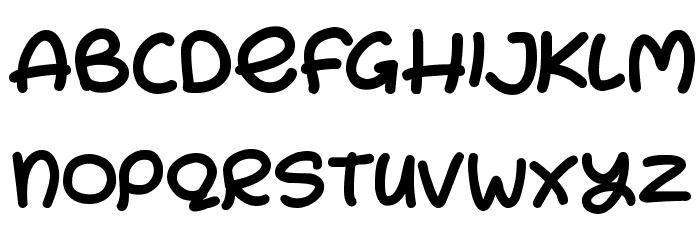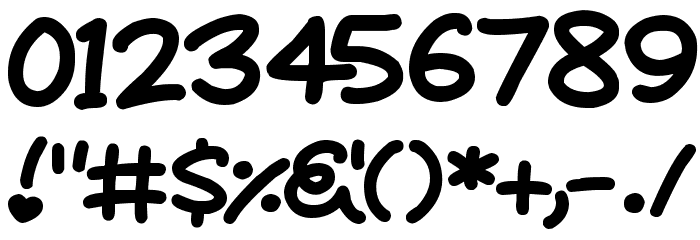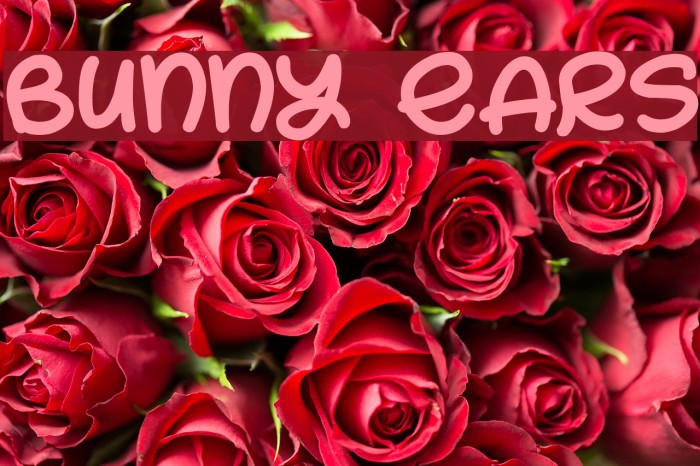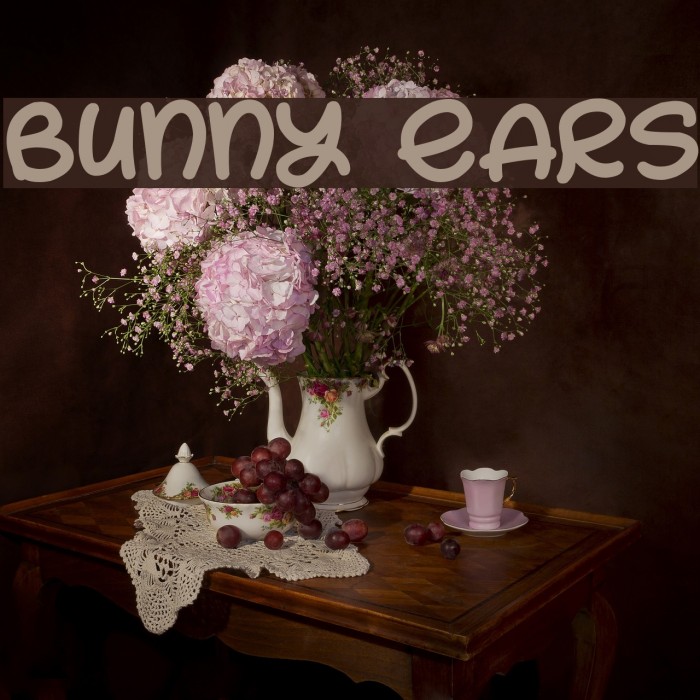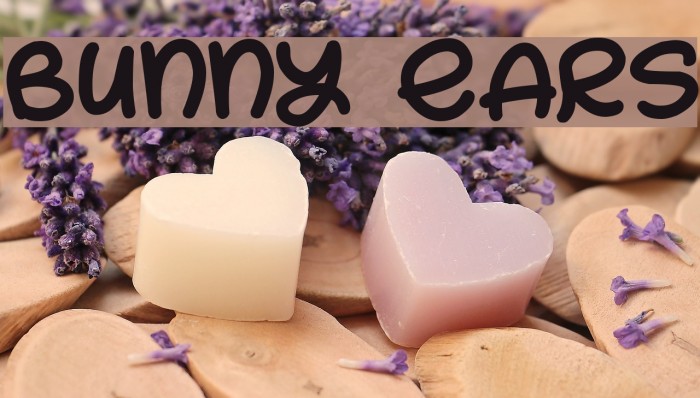
Bunny Ears Font
This playful and whimsical font features rounded, bubbly characters that convey a sense of fun and lightheartedness. The strokes are thick and consistent, giving the font a bold presence. Each letter is slightly tilted, adding to its casual and informal style. The font maintains a uniform stroke width throughout, with smooth curves and a friendly appearance. It is highly legible and stands out due to its unique, hand-drawn aesthetic. The numbers and special characters follow the same playful design, making it suitable for creative and informal projects.
A playful, rounded font with a bubbly, hand-drawn style.
- Proposed Projects: Ideal for children's books, playful branding, party invitations, and casual social media graphics.
- Overall Style: Playful
- Use Case: Headlines, Logos, Informal Text